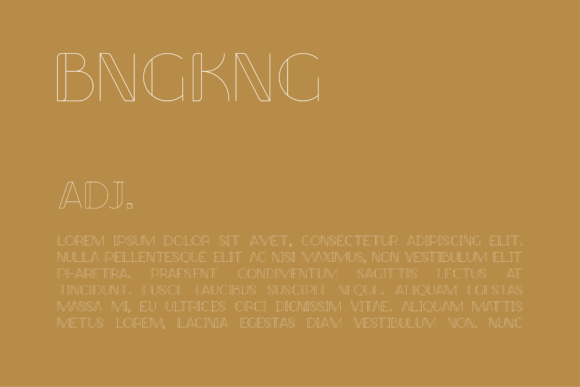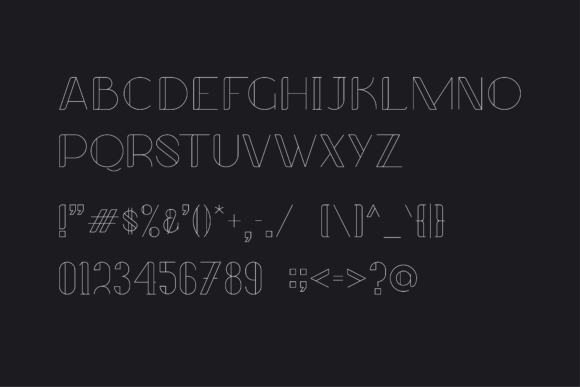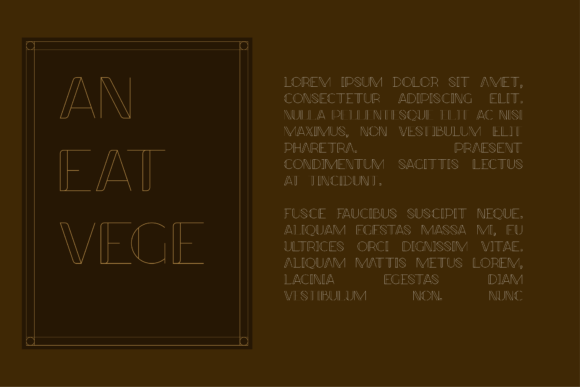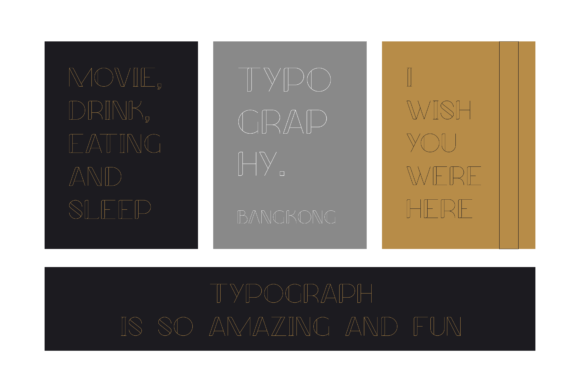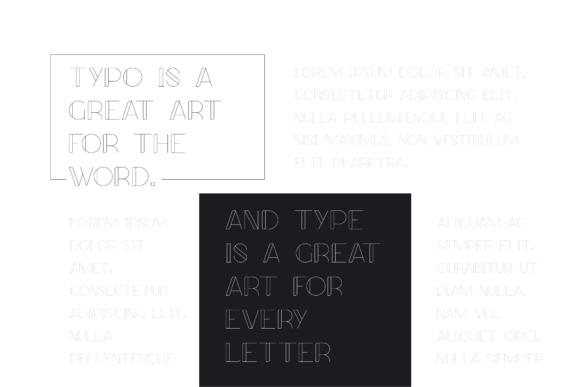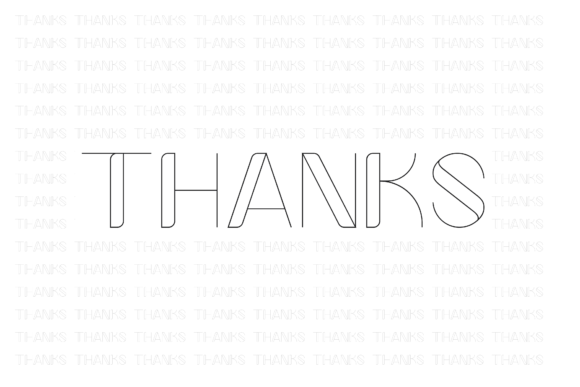
Bangkong Font: The Perfect Sans Serif Font for Your Creative Projects
Are you a designer or crafter looking for a unique and versatile font to elevate your creative projects? Look no further than Bangkong Font! This dainty sans serif font is perfect for a wide range of applications, from logos and stationery to clothing design, social media, photography, and more.
What is Bangkong Font?
Bangkong Font is a modern sans serif font that exudes elegance and sophistication. Its delicate lines and curves make it a standout choice for designers and crafters who want to add a touch of refinement to their work. Whether you’re creating a logo, designing a t-shirt, or crafting a social media post, Bangkong Font is the perfect choice.
Characteristics of Bangkong Font
So, what makes Bangkong Font so special? Here are just a few of its key characteristics:
• Dainty and elegant: Bangkong Font is a delicate font that adds a touch of sophistication to any project.
• Sans serif: The font’s sans serif design makes it easy to read and versatile enough to use in a variety of contexts.
• Modern and fresh: Bangkong Font has a modern feel that’s perfect for designers and crafters who want to create fresh and contemporary designs.
Uses for Bangkong Font
Bangkong Font is a versatile font that can be used in a wide range of creative projects. Here are just a few ideas to get you started:
• Logos: Bangkong Font is perfect for creating elegant and sophisticated logos that will help your brand stand out.
• Stationery: Add a touch of refinement to your stationery with Bangkong Font, perfect for creating business cards, letterheads, and more.
• Clothing design: Bangkong Font is a great choice for designing t-shirts, hoodies, and other clothing items that require a modern and fresh look.
• Social media: Use Bangkong Font to create eye-catching social media posts that will help you connect with your audience.
• Photography: Add a touch of elegance to your photography with Bangkong Font, perfect for creating captions, titles, and more.
Why Choose Bangkong Font?
So, why should you choose Bangkong Font for your creative projects? Here are just a few reasons:
• Unique and distinctive: Bangkong Font is a unique and distinctive font that will help your designs stand out from the crowd.
• Elegant and sophisticated: The font’s elegant and sophisticated design makes it perfect for designers and crafters who want to create refined and polished designs.
• Versatile: Bangkong Font is a versatile font that can be used in a wide range of creative projects, from logos and stationery to clothing design and social media.
In conclusion, Bangkong Font is a dainty sans serif font that’s perfect for designers and crafters who want to add a touch of elegance and sophistication to their creative projects. With its unique and distinctive design, elegant and sophisticated feel, and versatile uses, Bangkong Font is a great choice for anyone looking to elevate their designs. So why wait? Try Bangkong Font today and see the difference it can make in your creative projects!